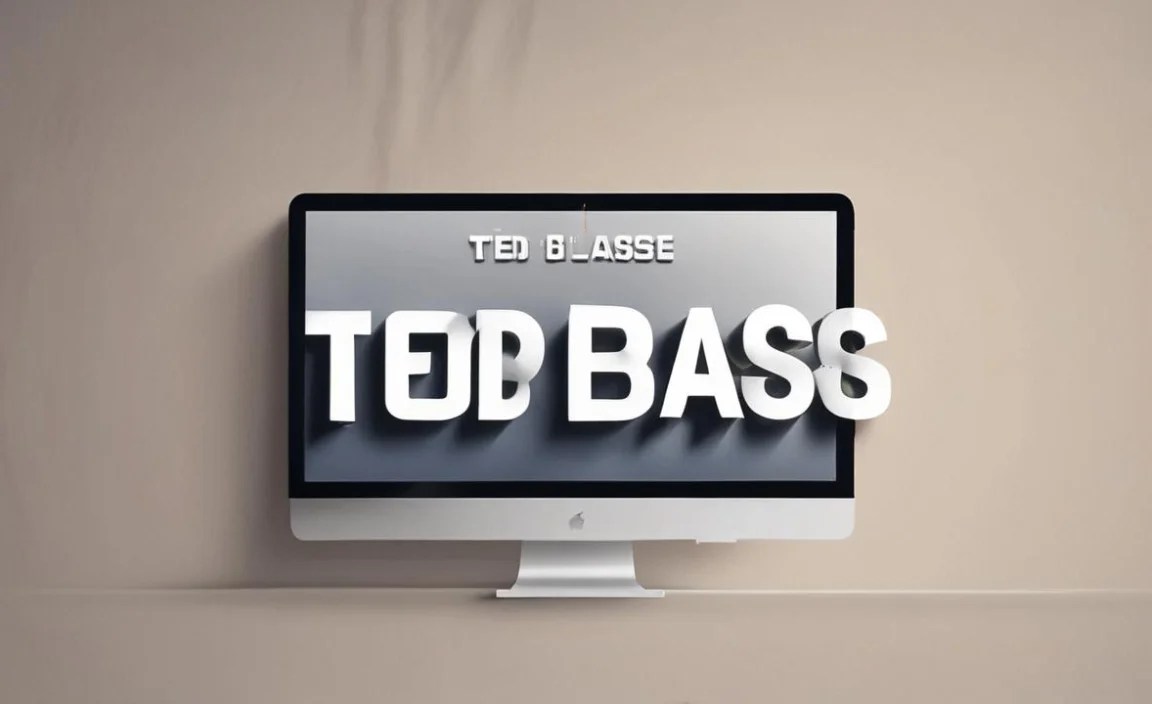
The Ted Lasso Font captures the spirited charm of the hit show Ted Lasso, starring Jason Sudeikis. Inspired by the show’s lighthearted vibe, this font is perfect for casual projects and has quickly become a favorite among designers and fans alike. Its design features a playful twist reminiscent of classic fonts like Futura and Graphicus DT, making it ideal for banners, stickers, email headers, and website text.
What Is The Ted Lasso Font, Actually?
- Graphicus DT
Developers created the font with modern DTP types in mind. It comes in several weights, ranging from light to bold. Users can choose the perfect style for their projects. Whether you’re designing images, text overlays, or dynamic graphics, Ted Lasso Font ensures excellent readability. It works well on both Android devices and Apple products. Additionally, it performs seamlessly on platforms like Roku and web applications
The design of this font draws from creative influences like Bill Lawrence, Brendan Hunt, and Joe Kelly. Its casual yet refined look has caught the attention of Bloomberg News. Fans celebrate its versatility, using it in MLS season pass promotions. It also appears in fun action banners that people share on Twitter.
Bring Joy to Your Designs, Fun & Casual Projects
Its design ensures that required fields on a website maintain a friendly, approachable appearance, and it plays well with other fonts, making it a go-to pairing option with both Futura and Graphicus DT.
What Is The Ted Lasso Font?
It’s a casual, fun web font inspired by the hit show Ted Lasso and Jason Sudeikis’ character.
Which Classic Fonts Is It Similar To?
It bears similarities to Futura and Graphicus DT, offering a playful yet refined look.
Who Influenced Its Design?
Creative influences include industry names like Bill Lawrence, Brendan Hunt, and Joe Kelly.
What Projects Is It Best Suited For?
Ideal for banners, stickers, emails, website text, and even MLS season pass graphics.
What Are The Font Size And Spacing Recommendations For The Ted Lasso Font?
Recommended font size varies by context. For titles, around 36px works well, and for body text, 16px is typical. Letter spacing should be moderate, neither too tight nor too loose, depending on the design’s tone.
What Are The Best Practices For Using The Ted Lasso Font In Web Design?
Use it for headlines or branding to evoke a friendly, bold atmosphere. Keep legibility high by balancing size and spacing. Pair it with simpler fonts for body text to avoid visual clutter.
What Are The Different Versions Of The Ted Lasso Font Available?
The Ted Lasso font is based on a playful sans-serif style, and there are multiple weights and styles, including regular, bold, and italics. These variations provide flexibility in design.
What Are The Limitations Of The Ted Lasso Font In Print Media?
Its playful, casual nature can be challenging for formal print projects. It’s best used for creative, informal materials like posters or promotional pieces, but less suitable for dense text-heavy content.
What Are The Unique Selling Points Of The Ted Lasso Font?
It conveys a friendly, approachable vibe, blending playfulness with a clean, modern aesthetic. Its legibility and versatility make it perfect for casual, upbeat designs, especially in branding and media.
What Is The Font Style Used In The Ted Lasso Title?
The title uses a bold, playful sans-serif font with thick letterforms and slight rounded edges, emphasizing warmth and approachability in a modern style.